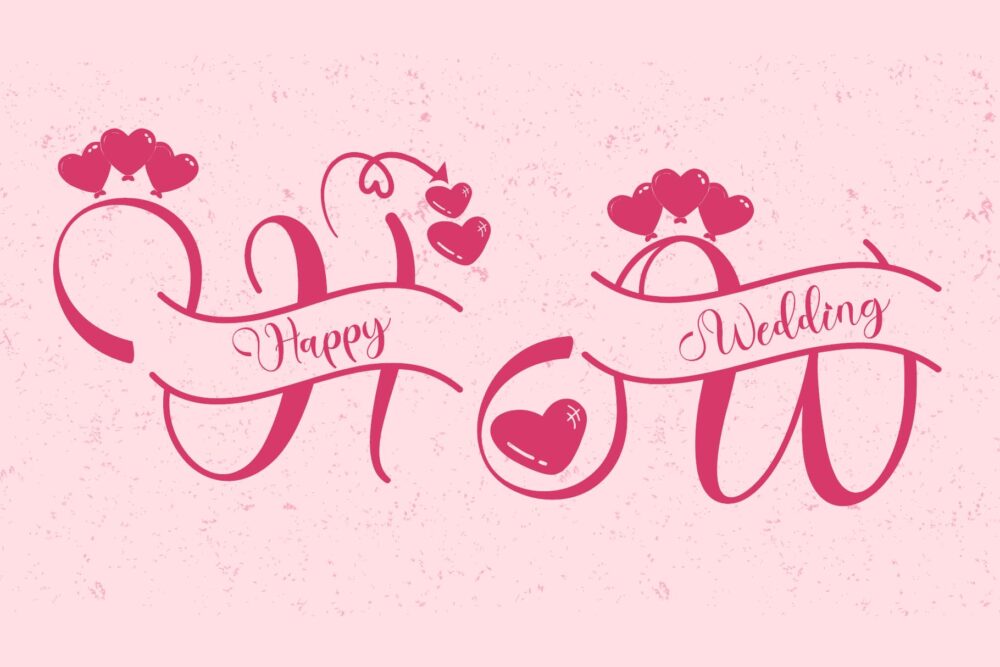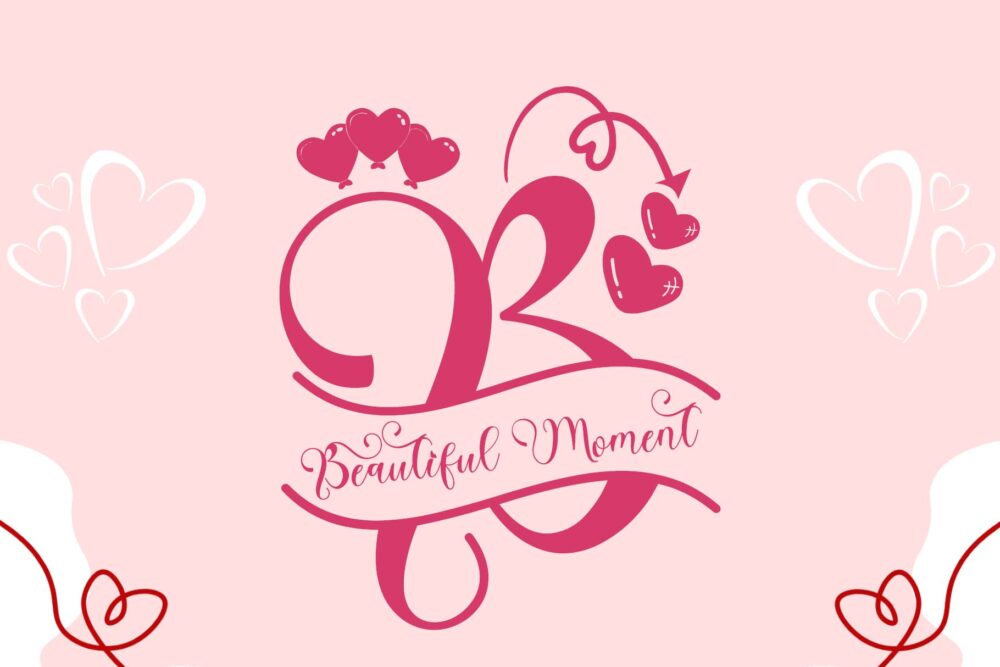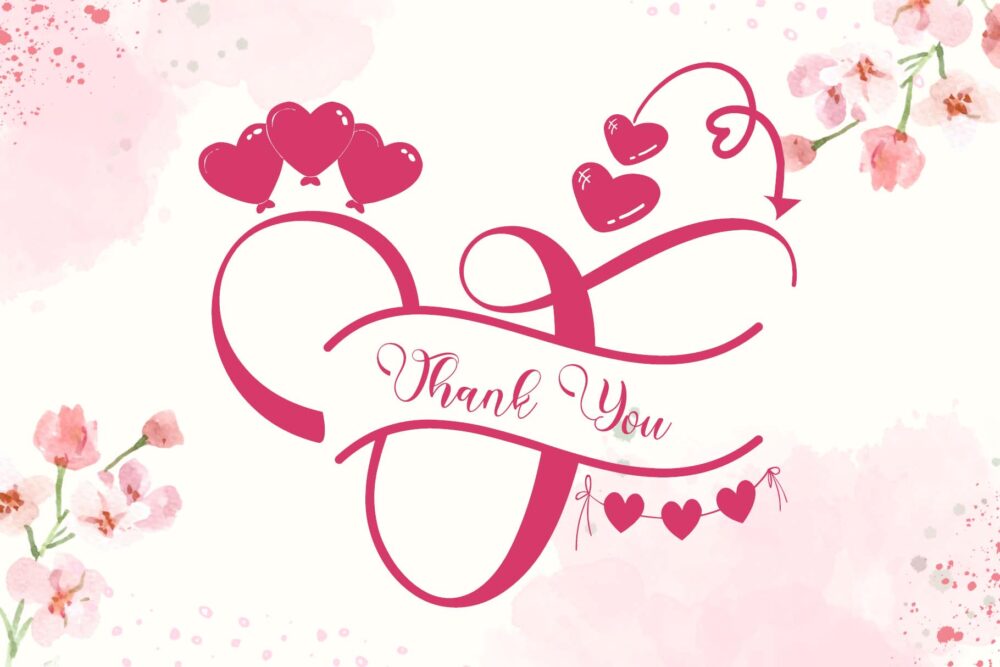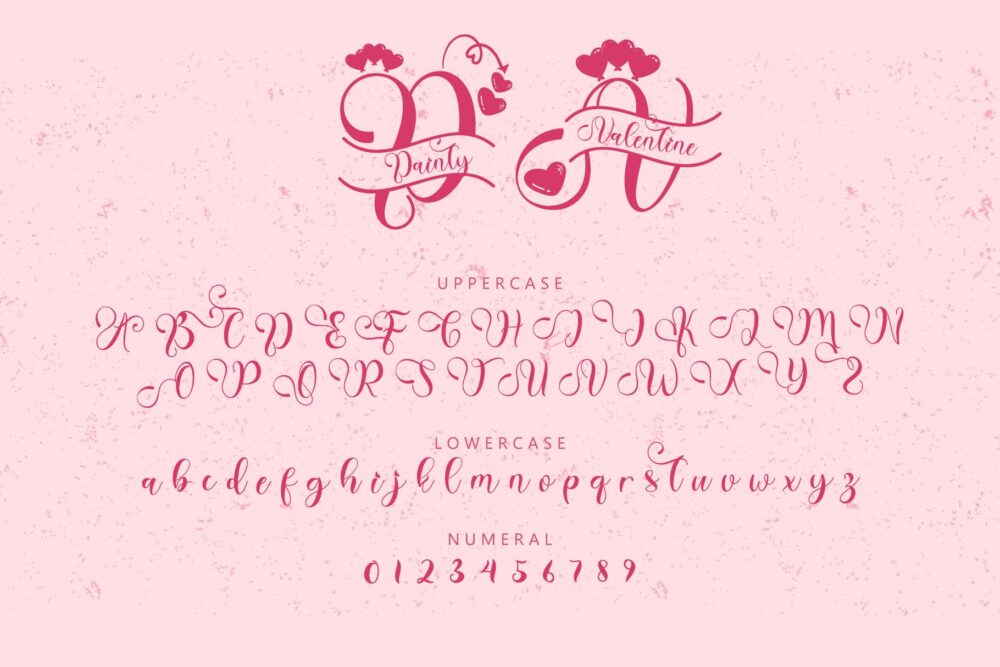
Dainty Valentine Font
Dainty Valentine font is a romantic and elegant script typeface that captures the essence of love and charm. With its delicate curves, flowing strokes, and hand-drawn aesthetic, it adds a graceful touch to any design. Perfect for wedding invitations, greeting cards, or romantic branding, Dainty Valentine exudes warmth and sophistication. Its timeless beauty and gentle appeal make it an excellent choice for projects seeking to evoke emotion and heartfelt sentiment.